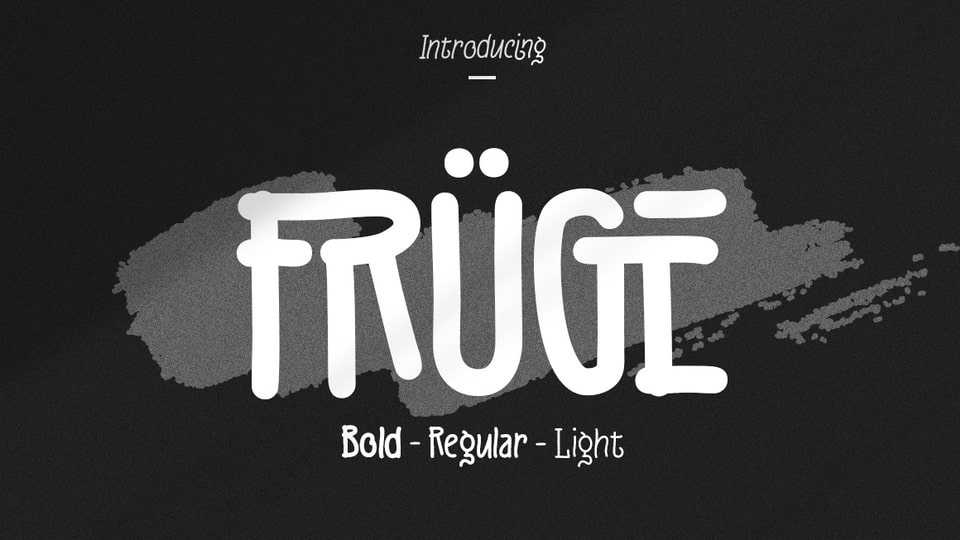
Download Fruge font, a fresh, calm, and charming monoline handwriting typeface. Fruge font is a round edge style and equipped with extra ligatures and alternatives.